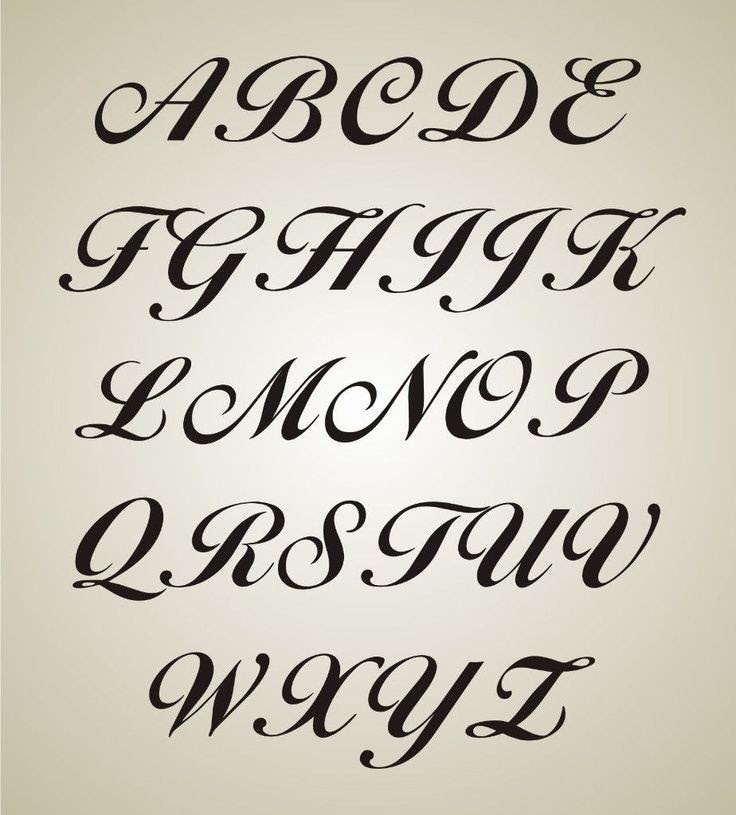
Why use bold cursive fonts? Shakthika is a modern cursive font featuring lots of fancy styling.
A fancy bold cursive font can serve as a strong point of interest, because they tend to have a lot of variety and interest.
Every font is free to download! Cursive font is a type of font that is curbed in nature and presents are stable and cool feel. Click to find the best 273 free fonts in the bold cursive script style.
Every font is free to download! Shakthika is a modern cursive font featuring lots of fancy styling. What font is used for cursive?